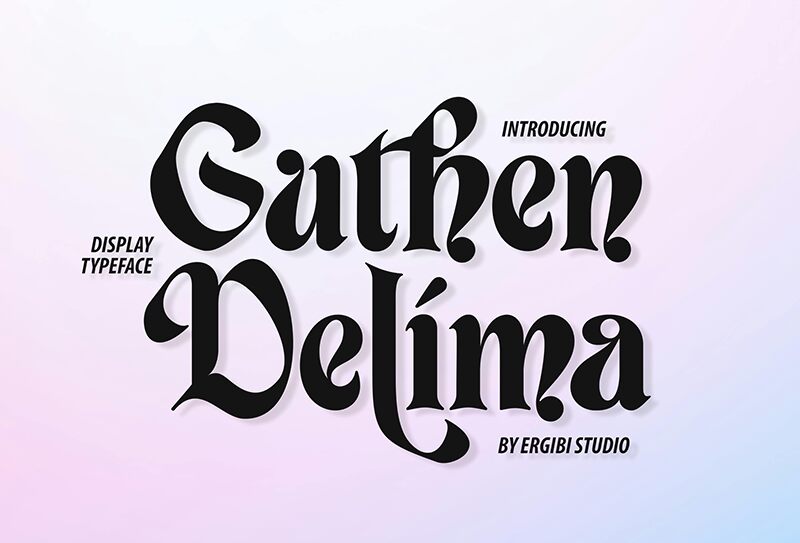
Guthen Delima font by Riyadh Rahman is a free font characterized by a dark aesthetic with a dramatic flair that brings a touch of gothic influence to your work. Its classical design and bold letterforms give it a unique visual presence where elegance, style, and flare encompassing classicism with a contemporary twist are beautifully merged. It’s designed with artistic expression in mind yet preserves an open feel that keeps it friendly to all readers despite its initial intimidating appearance.